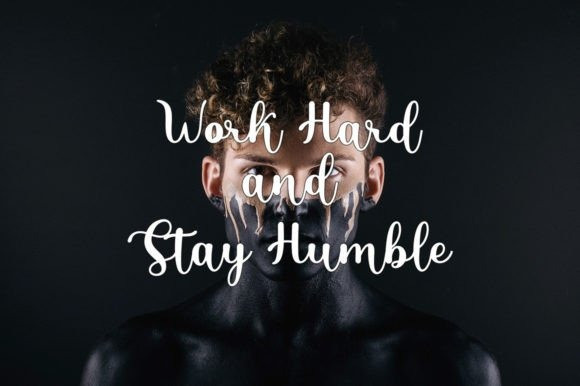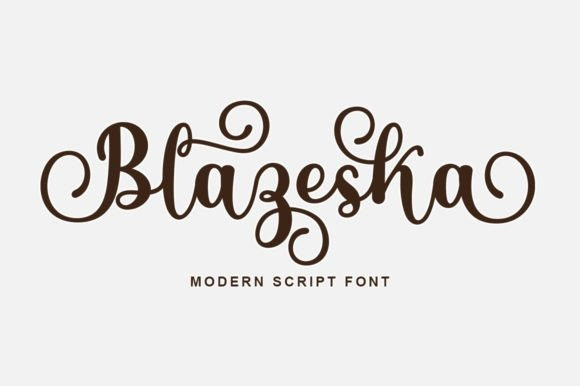
Blazeska Font
Blazeska Calligraphy Font is a beautiful and sweet handwritten script font. This soft font will look great on a variety of design ideas. This will add a fun and romantic touch to any of your projects!